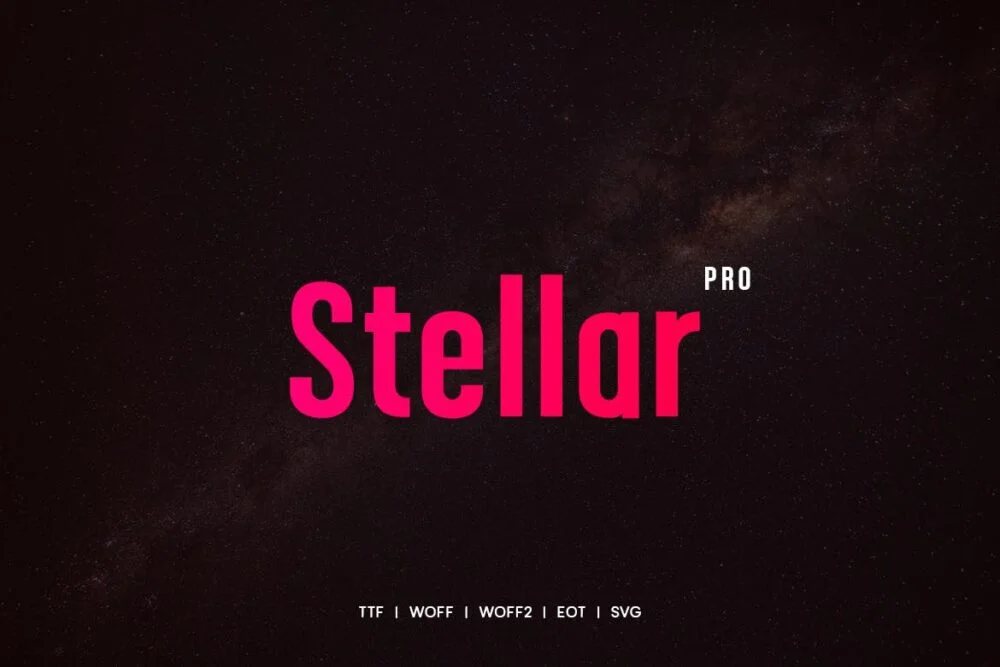
Stellar Pro Font
Where Stellar Pro Font works best
Versatile projects
Stellar Pro Font works across print and screen, from headlines to short paragraphs.
Branding
A well-drawn typeface is often all a small business needs for a clean, professional logo.
Templates & mockups
Designers use Stellar Pro Font in Canva, Figma and Adobe templates for a polished look.
What is Stellar Pro Font good for?
Stellar Pro Font is a Typeface tagged Download, Modern, Professional, Typeface. It works well for headlines, logos, posters, social media graphics and branding projects that need a distinctive typeface look.